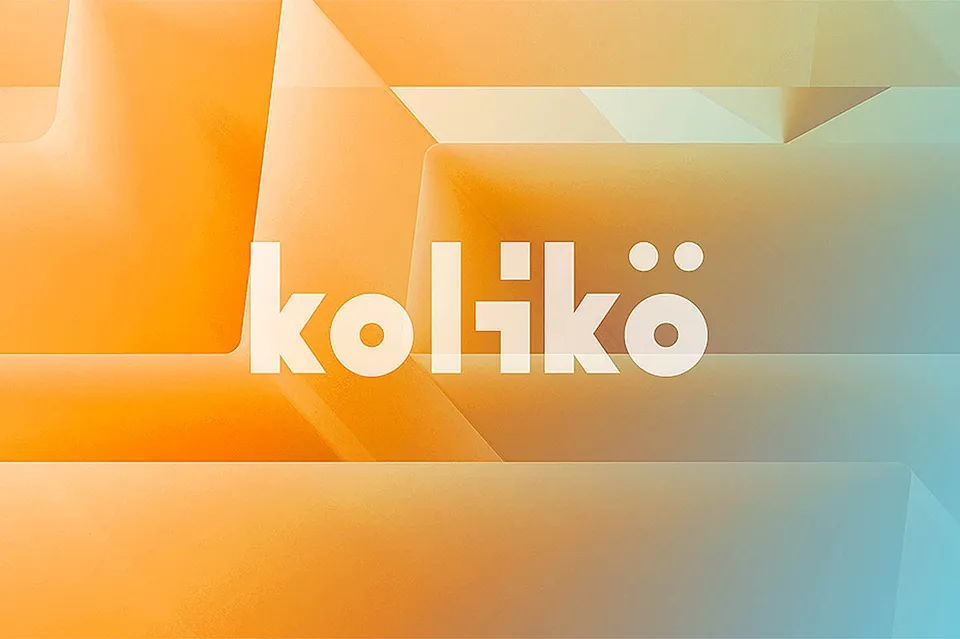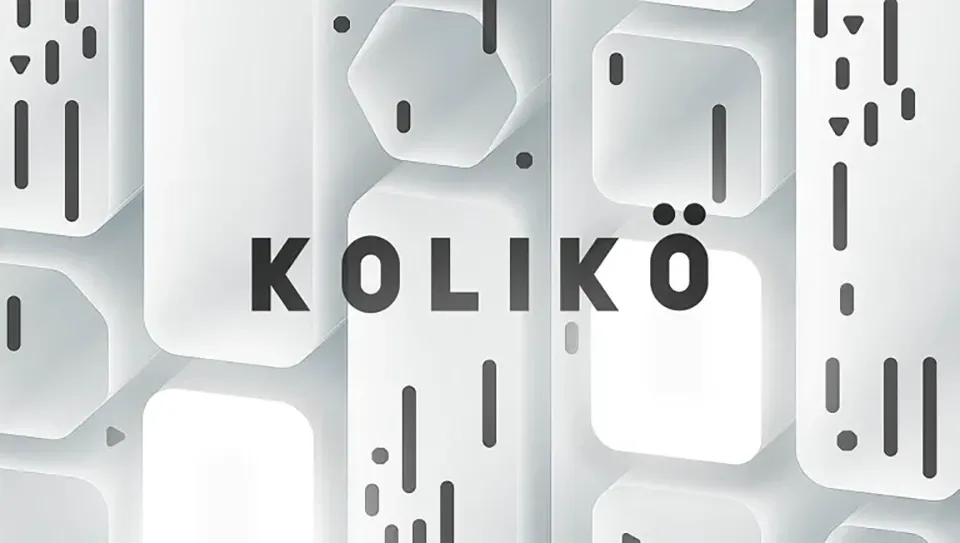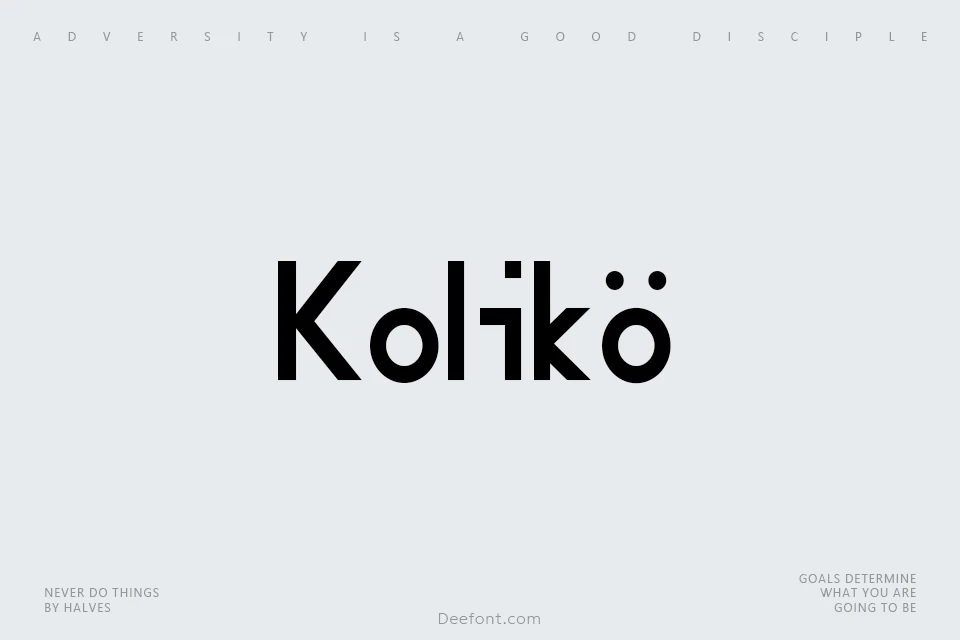
Kolikö Font
Kolikö Font is a minimalist and geometric sans-serif typeface designed for modern and clean aesthetics. Its sharp edges and balanced proportions create a sleek, contemporary look that is perfect for branding, headlines, posters, and web design. Kolikö stands out with its simplicity and versatility, offering excellent readability while maintaining a stylish edge. The font includes variations such as regular, thin, and bold weights, allowing designers to adapt it to various creative needs. Whether you’re aiming for a professional tone or a creative flair, Kolikö Font delivers a polished and timeless appeal that enhances any project with elegance and clarity.